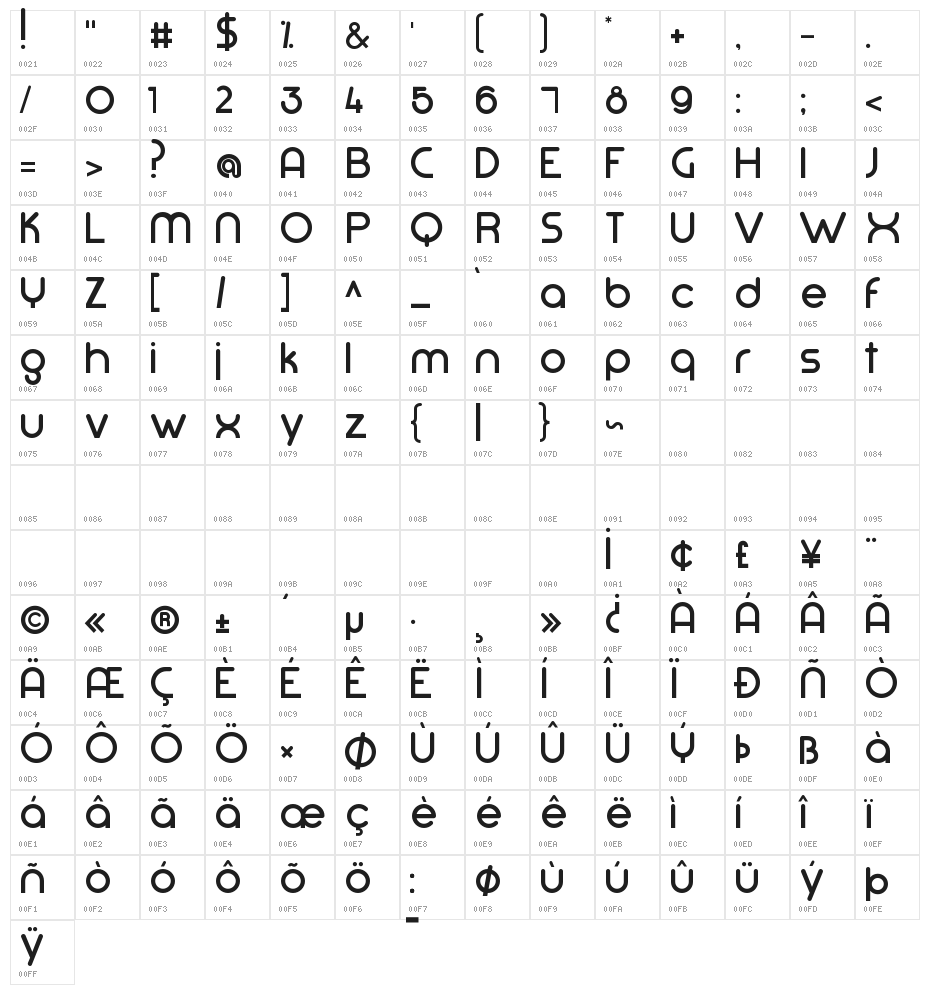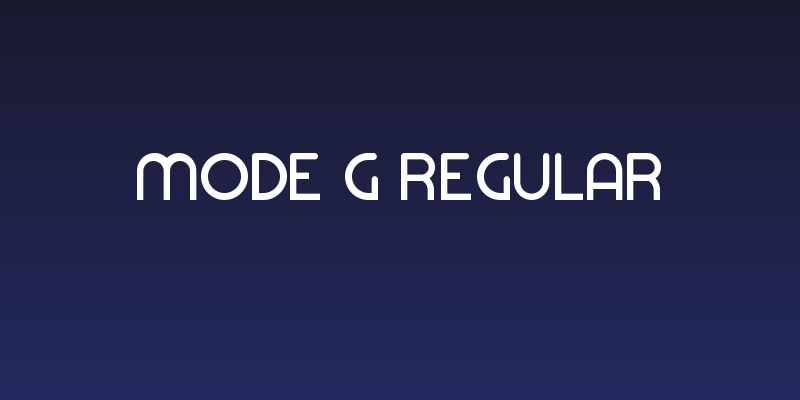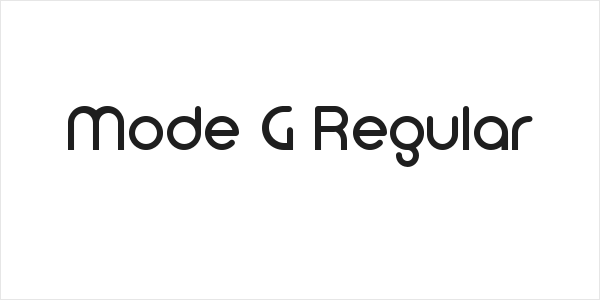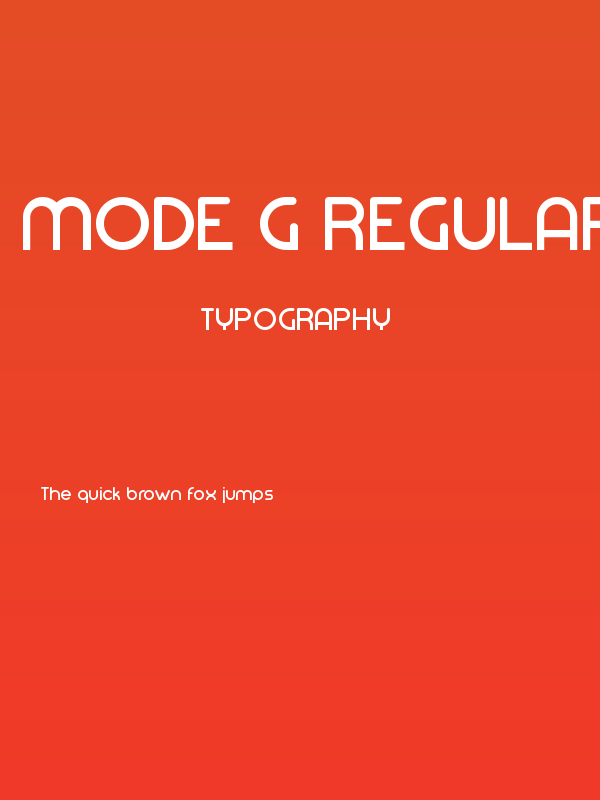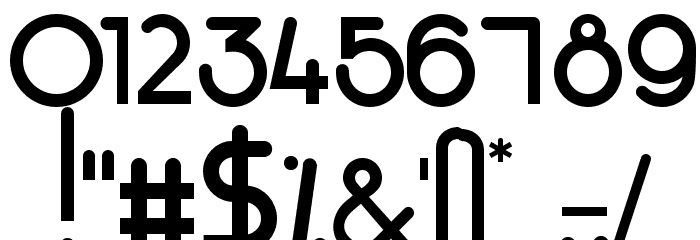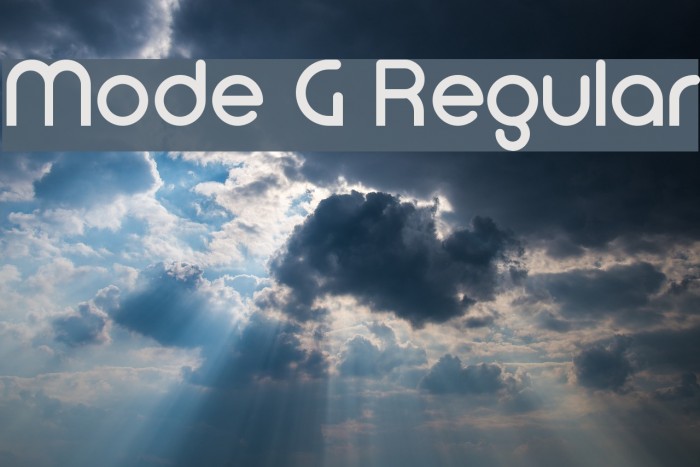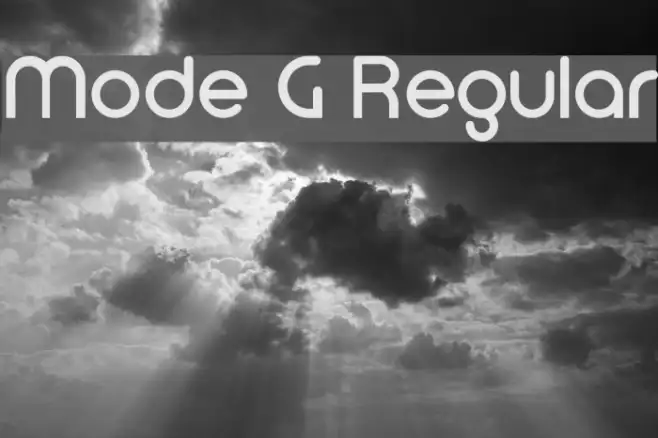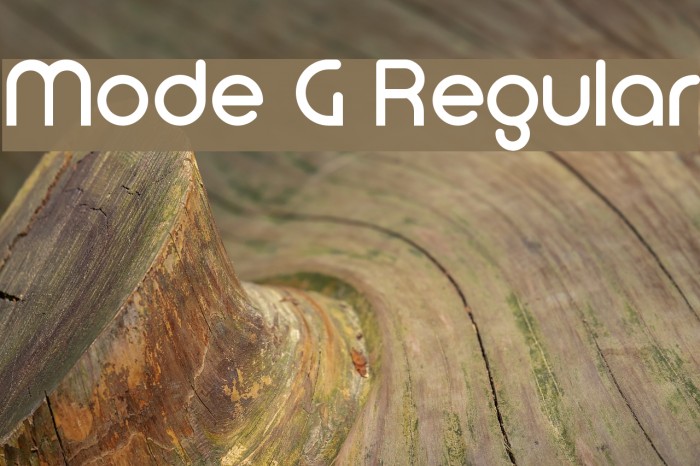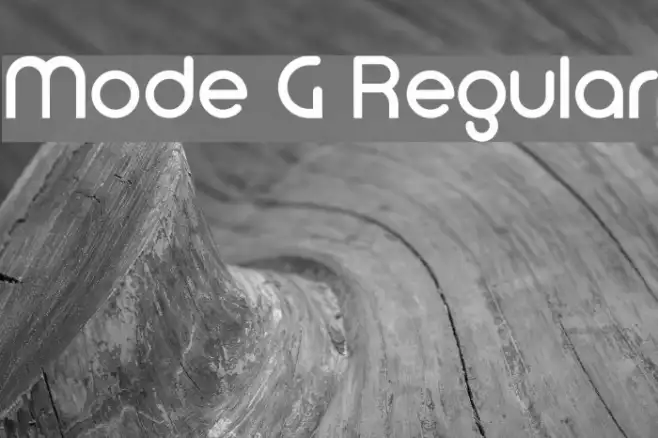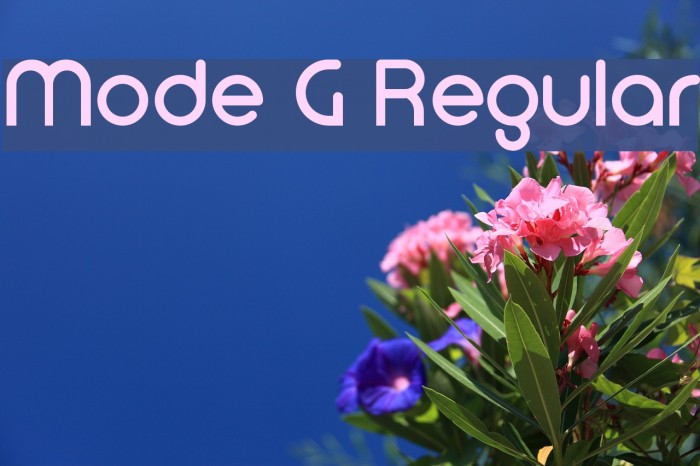
Mode G Regular Font
Mode G Regular Description
This font features a modern, geometric design with clean, rounded edges and a uniform stroke width. The characters are evenly spaced, providing a balanced and harmonious appearance. The uppercase letters exhibit a consistent height, while the lowercase letters maintain a smooth flow, enhancing readability. The numerals are distinct and align well with the overall style, making them suitable for various applications. Special characters are designed with the same attention to detail, ensuring they integrate seamlessly with the rest of the font. This font's simplicity and clarity make it versatile for both digital and print media.
| Proposed Projects | Ideal for branding, web design, advertising, and editorial projects. |